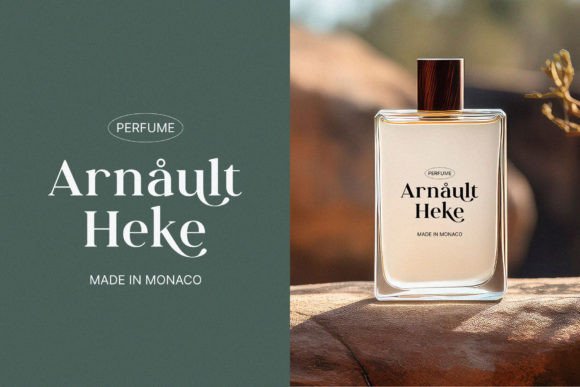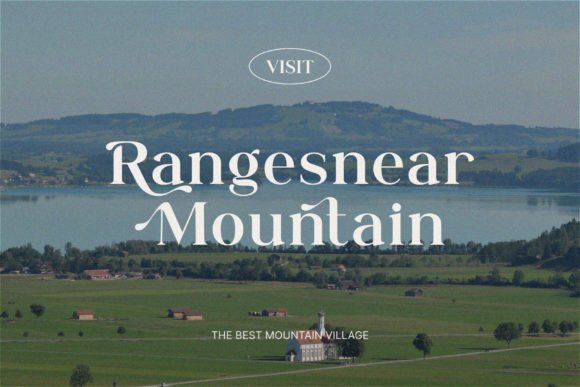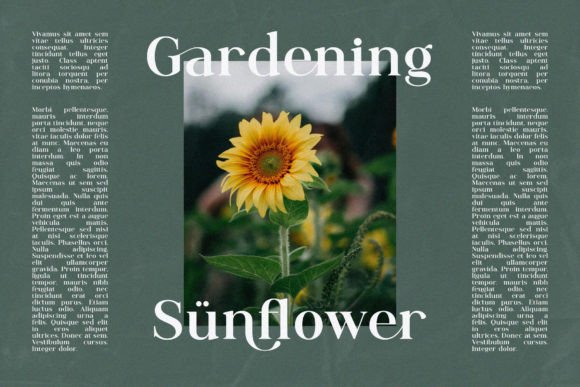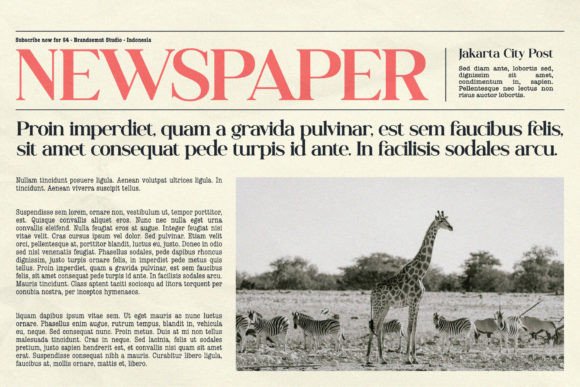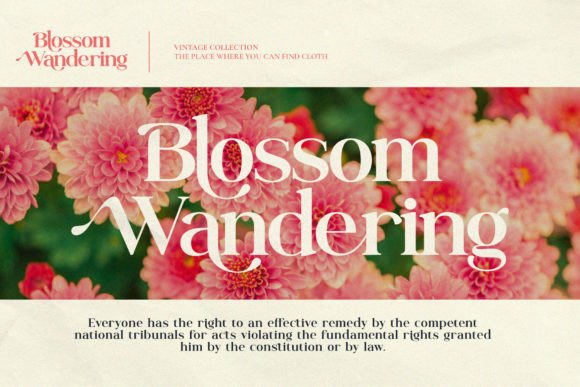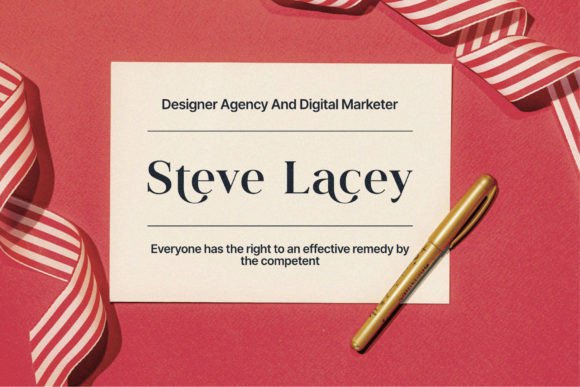
Introducing Galmine: A Modern & Elegant Serif Font
In the world of typography, a good font can make all the difference in the success of a design project. Whether you’re a graphic designer, a crafty DIY enthusiast, or a marketing professional, finding the right font can be a daunting task. That’s why we’re excited to introduce Galmine, a modern and elegant serif font that’s sure to elevate your designs to the next level.
What is Galmine?
Galmine is a classy typeface designed specifically for display purposes, making it perfect for headings, logos, branding, magazines, product packaging, and invitations. Its clean lines and smooth curves give any project an extra touch of sophistication and elegance. With Galmine, you can add a touch of luxury and refinement to your designs, making them stand out from the crowd.
Key Features of Galmine
- Modern and Elegant Design: Galmine boasts a sleek and contemporary design that’s perfect for designers and crafters looking for a sophisticated look.
- Serif Font: The serif design of Galmine adds a touch of classic elegance to any project, making it perfect for formal and informal designs alike.
- Clean Lines and Smooth Curves: The font’s clean lines and smooth curves ensure that your designs look crisp and professional, even at small sizes.
- Versatile: Galmine can be used for a wide range of design projects, from headings and logos to branding and packaging.
Why Choose Galmine?
With so many fonts available, why choose Galmine? Here are just a few reasons why Galmine stands out from the crowd:
- Unique and Distinctive: Galmine’s unique design ensures that your projects will stand out from the crowd and grab attention.
- Easy to Read: Despite its elegant design, Galmine is easy to read, even at small sizes, making it perfect for body text and captions.
- Highly Versatile: Galmine can be used for a wide range of design projects, from formal and corporate designs to informal and creative projects.
- Professional and Sophisticated: Galmine’s sleek and modern design gives any project a professional and sophisticated look that’s sure to impress.
How to Use Galmine
Using Galmine is easy! Here are a few tips to get you started:
- Headings and Titles: Use Galmine for headings and titles to add a touch of elegance and sophistication to your designs.
- Logos and Branding: Galmine is perfect for logos and branding, adding a touch of luxury and refinement to your brand identity.
- Magazines and Publications: Use Galmine for magazine and publication designs to add a touch of class and sophistication.
- Product Packaging: Galmine is perfect for product packaging, adding a touch of elegance and refinement to your product designs.
In conclusion, Galmine is a modern and elegant serif font that’s perfect for designers and crafters looking for a sophisticated and versatile typeface. With its clean lines, smooth curves, and unique design, Galmine is sure to elevate your designs to the next level. Whether you’re working on a formal or informal project, Galmine is the perfect choice for adding a touch of luxury and refinement.